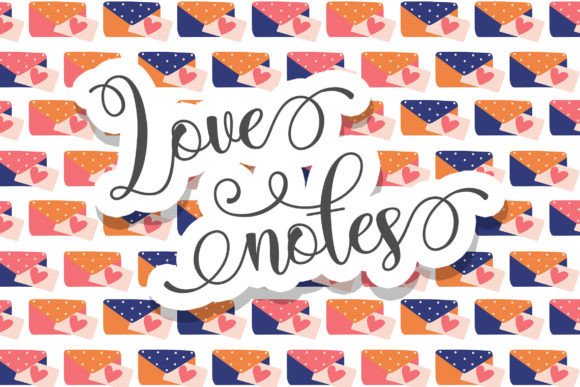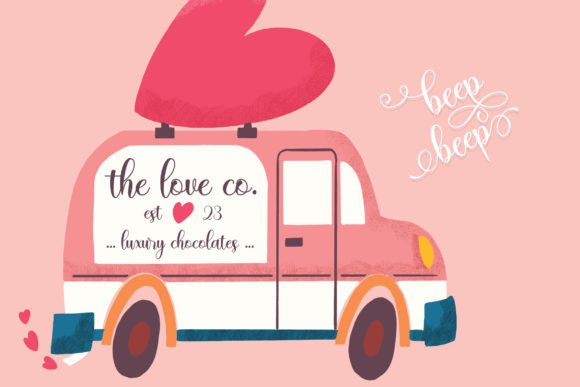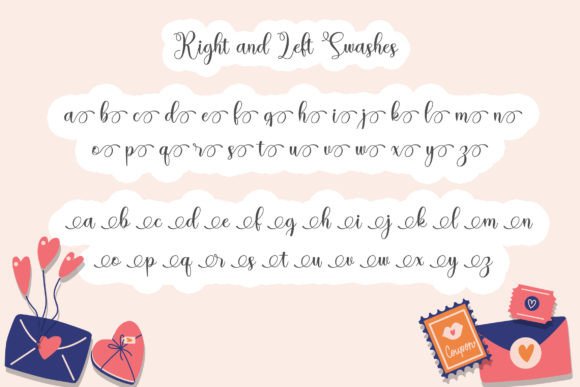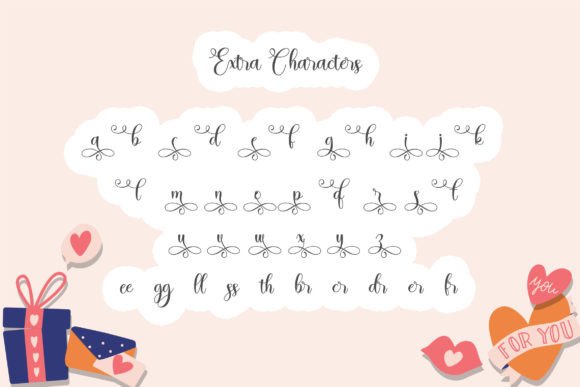
The Sweet Spot: Discovering Bright Vibes Font
I still remember the design project that led me to Bright Vibes Font. I was working on a wedding invitation suite, and my client had a very specific vision: elegant, handwritten, and warm. I scoured font databases, but nothing seemed quite right. That was until I stumbled upon Bright Vibes – a lovely and sweet handwritten script font that instantly captured the essence of what my client was looking for.
An Honest Review of Bright Vibes Font
So, what makes Bright Vibes so special? Let’s dive into the good stuff and a few quirks I’ve noticed.
• ✨ Sweet and Elegant Look: Bright Vibes adds a touch of sophistication to any design, making it perfect for wedding invitations, thank you cards, and greeting cards.
• ✅ PUA Encoded: The font is PUA encoded, which means accessing all the glyphs and ligatures is a breeze.
• 💕 Handwritten Touch: It brings a personal, handwritten feel to logos, business cards, and quotes, making them stand out.
• 🎨 Versatility: Whether you’re designing for digital or print, Bright Vibes fits right in.
• 🤔 Legibility at Small Sizes: Like many script fonts, Bright Vibes can get a bit tricky to read at very small sizes. It’s best used at larger sizes where its beauty can shine.
• ⚠️ Overuse: Because it’s so lovely, there’s a temptation to use it everywhere. Remember, moderation is key to keeping your design fresh.
The Story Behind Bright Vibes
While the origins of Bright Vibes might be shrouded in mystery, it’s easy to imagine a designer sitting down with a pen and paper, aiming to capture the essence of handwritten elegance. Perhaps they wanted to create a font that felt like a warm hug – something that’s both personal and sophisticated.
Q: Is Bright Vibes suitable for body text?
A: While Bright Vibes is stunning, it’s best used for headings or short paragraphs due to its script nature. For longer body text, a more straightforward font might be easier to read.